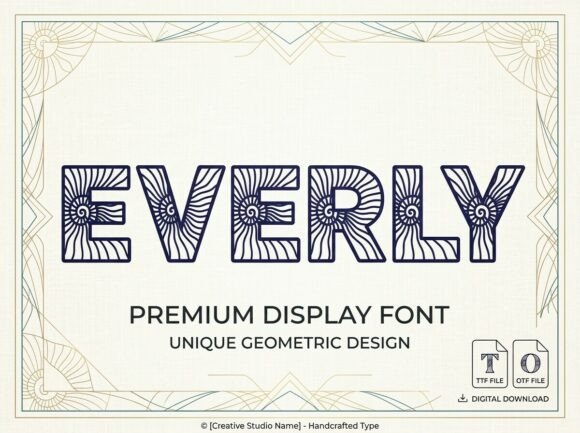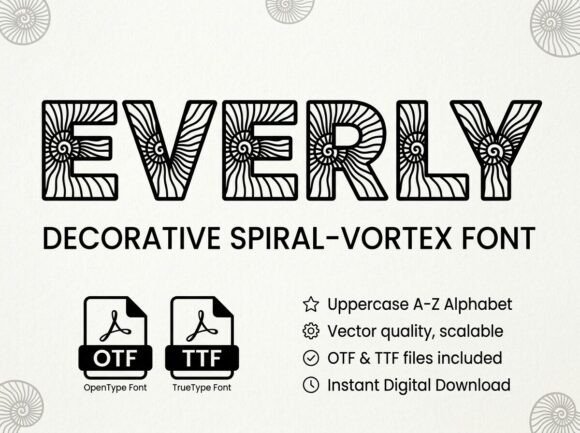
Introducing Everly Font: A Stunning Decorative Display Font
Are you tired of using the same old fonts for your designs? Look no further than Everly Font, a unique and artistic display font that’s sure to turn heads. With its strong visual personality and decorative elements, this font is perfect for creators who want to add a touch of elegance and sophistication to their work.
Everly Font is a stunning decorative display font designed to be the center of attention. Its unique artistic elements and strong visual personality make it perfect for bold headlines, artistic logos, and creative packaging. Whether you’re a designer, craftsperson, or DIY enthusiast, this font is sure to elevate your work and set it apart from the ordinary.
One of the best things about Everly Font is its versatility. This font is perfect for a wide range of design applications, from bold headlines and artistic logos to creative packaging and decorative initials. And with its professional and polished finish, you can use it with confidence, knowing that your designs will look great on any device or platform.
⚠️ IMPORTANT NOTE BEFORE PURCHASE: Everly Font is an ALL-CAPS (Uppercase Only) display typeface. This means that it does not include lowercase letters. It’s specifically designed for high-impact headlines, logos, and decorative initials where every letter is a work of art.
Why Choose Everly Font?
So why choose Everly Font over other decorative display fonts? Here are just a few reasons:
- Unique and Artistic – Everly Font features unique artistic elements that will add a touch of elegance and sophistication to your designs.
- Versatile – This font is perfect for a wide range of design applications, from bold headlines and artistic logos to creative packaging and decorative initials.
- Professional and Polished – Everly Font has a professional and polished finish that will make your designs look great on any device or platform.
Tips for Using Everly Font
Here are a few tips for using Everly Font in your designs:
- Use it for Headlines – Everly Font is perfect for bold headlines and titles. Use it to add a touch of elegance and sophistication to your designs.
- Create Artistic Logos – With its unique artistic elements, Everly Font is perfect for creating artistic logos that will set your brand apart.
- Add Decorative Initials – Use Everly Font to add decorative initials to your designs. This will add a touch of elegance and sophistication to your work.